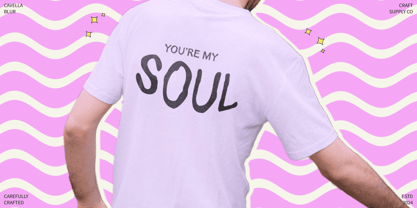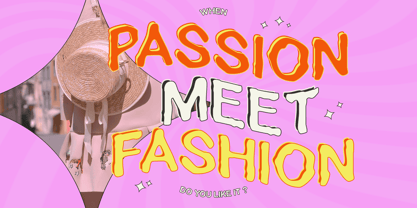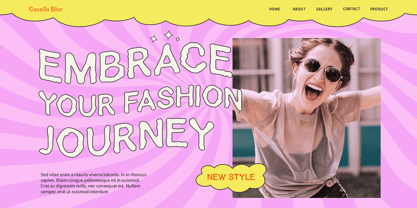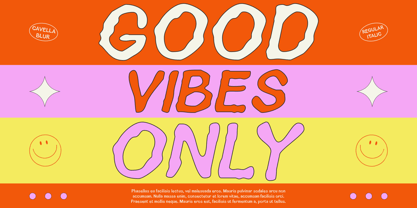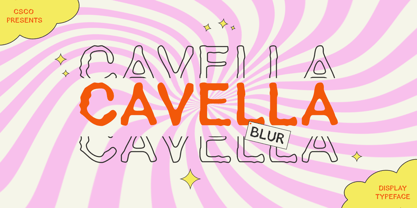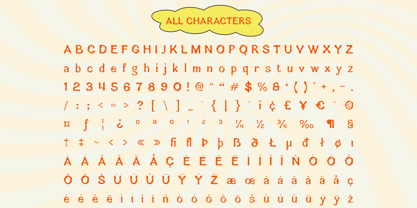
Cavella Blur
The Cavella Blur Font Family was designed by Trio Nazzar Saputra, Wahyu Hadi Yuana and published by Craft Supply Co. Cavella Blur contains 2 styles and family package options. More about this family
Cavella Blur: A Psychedelic Blend of Funk and Blur
Introduction
Cavella Blur is a display font that combines psychedelic and funky shapes with a blur effect, creating a uniquely creative and intriguing design. With its eccentric and colorful style, this font is perfect for projects that demand a unique and impressive appearance.
Psychedelic and Funky Shapes
The psychedelic and funky shapes of Cavella Blur give it a distinctive and eye-catching look. These shapes add a playful and vibrant touch to the font, making it ideal for designs that want to stand out and make a statement.
Blur Effect for Added Dimension
The blur effect in Cavella Blur adds an additional dimension to the font, creating a visually appealing and captivating impression. This effect adds depth and movement to the letters, making them seem to come alive on the page.
Ideal for Unique and Impressive Designs
Cavella Blur is perfect for projects that require a unique and impressive appearance. Whether you’re designing posters, album covers, or branding materials, this font can help you create designs that are bold and memorable.
Enhance Your Designs with Cavella Blur
With its blend of psychedelic shapes and blur effect, Cavella Blur can add a touch of creativity and intrigue to any design. Whether you’re aiming for a retro look or something more modern and edgy, this font can help you achieve your design goals.